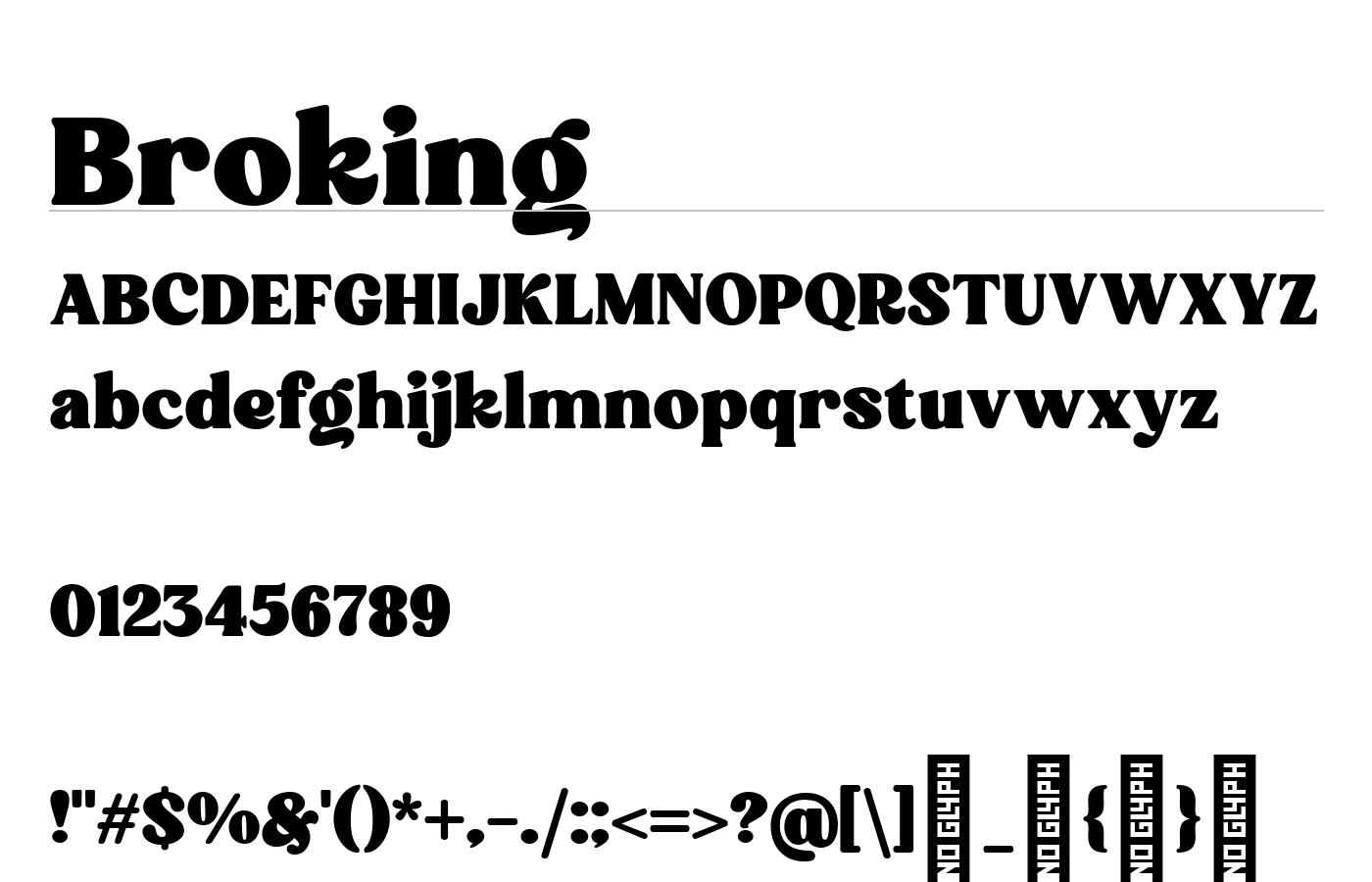
Broking is a bold slab serif font with thick, blocky serifs and high stroke contrast, giving it a strong and confident appearance. Its slightly condensed width and well-balanced letterforms make it ideal for impactful headlines and branding that demand attention while maintaining a classic yet modern feel. This font works especially well for logos, posters, and editorial designs where boldness and clarity are key.
Broking Font
About Broking Font